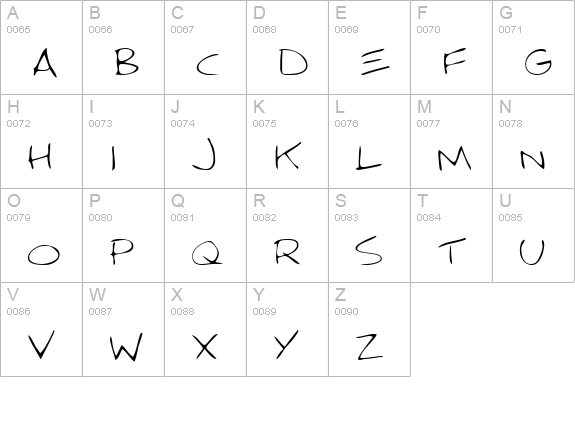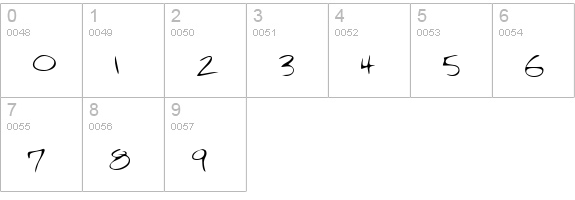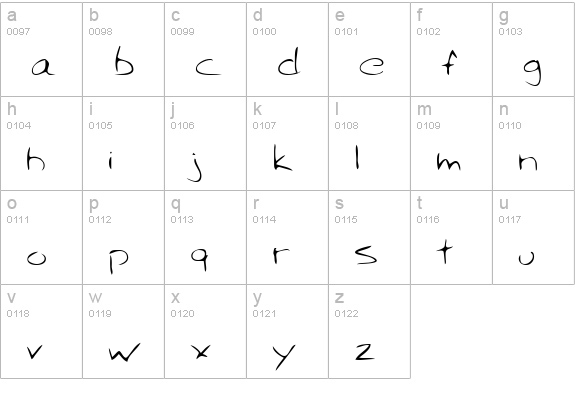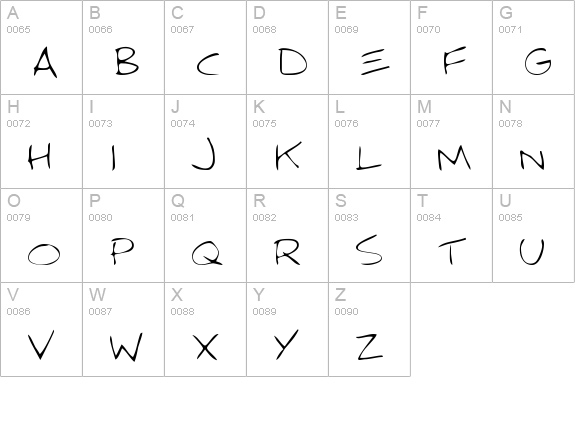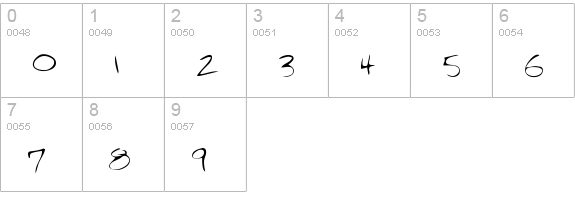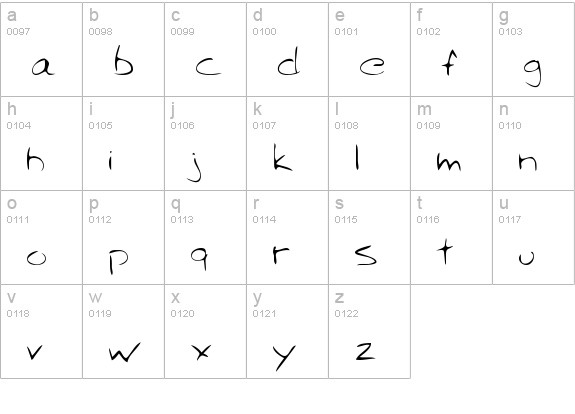
AngelasHand Regular Font Details
AngelasHand Regular is the standard, neutral variant in the AngelasHand typeface family \xE2\x80\x94 well suited to general body text, paragraphs, and standard typographic work.
The AngelasHand Regular font is a charming and elegant typeface that exudes a sense of sophistication and grace. With its delicate strokes and flowing lines, this font is perfect for adding a touch of beauty to any design project. Whether you're creating invitations, posters, or branding materials, AngelasHand Regular will bring a sense of warmth and style to your work. Best of all, this gorgeous font is available for free download at FontsMarket.com. Enjoy the versatility and beauty of AngelasHand Regular without breaking the bank. Download it today and elevate your designs with this stunning typeface.